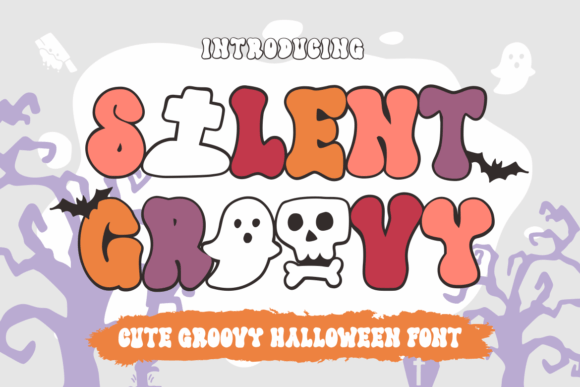
Immerse yourself in the enchanting world of Silent Groovy, a display font that oozes spookiness and charm. Jinanstd, the creative mastermind behind this font, has skillfully crafted a typeface that will cast a spell on your designs. Prepare to be captivated by its haunting yet playful spirit, perfect for conjuring up a Halloween atmosphere or adding an eerie touch to your horror-themed projects.
Silent Groovy's enchanting curves and whimsical glyphs will make your words dance off the page. Its mysterious aura will evoke a sense of curiosity and intrigue, leaving your audience spellbound. Whether you're designing posters, invitations, or social media graphics, this font will add a touch of magic that will leave a lasting impression.
With Silent Groovy, you have the power to transform ordinary text into captivating works of art. Its playful nature will ignite your imagination and inspire you to create designs that are both eye-catching and unforgettable. Unleash your creativity and witness the enchanting transformation as Silent Groovy casts its spell on your projects.